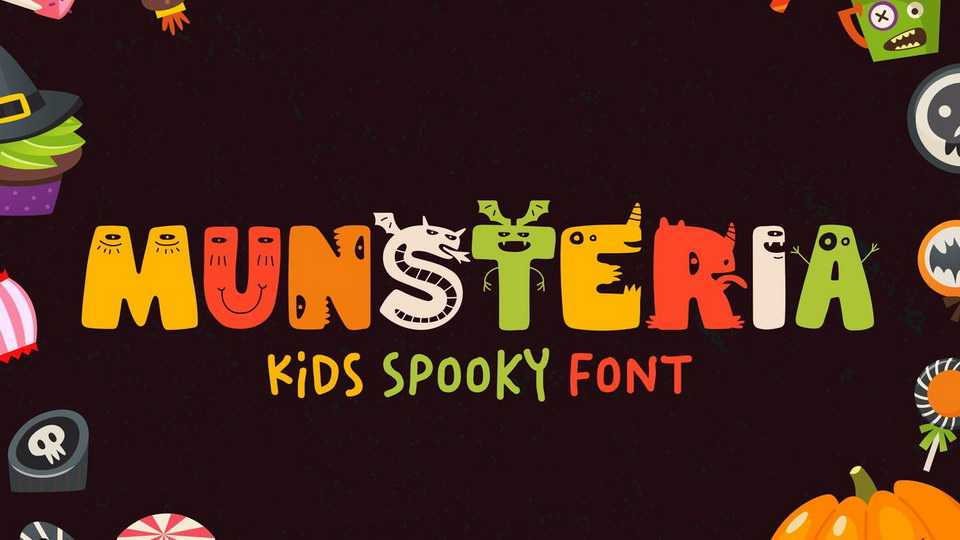
Download Munsteria font, kids spooky typeface. When we talk about monster, it’s not always the one that really scary. We can all have a cute, adorable, and friendly monster as well. Munsteria comes just like that. It is a kids friendly spooky monster for your projects.